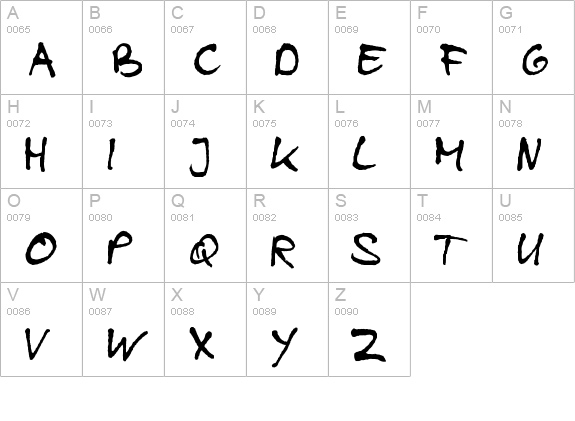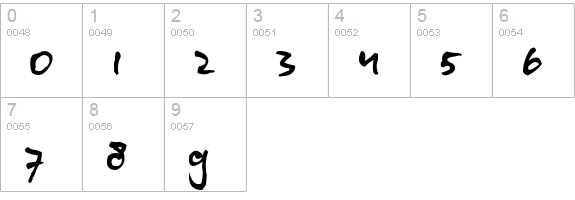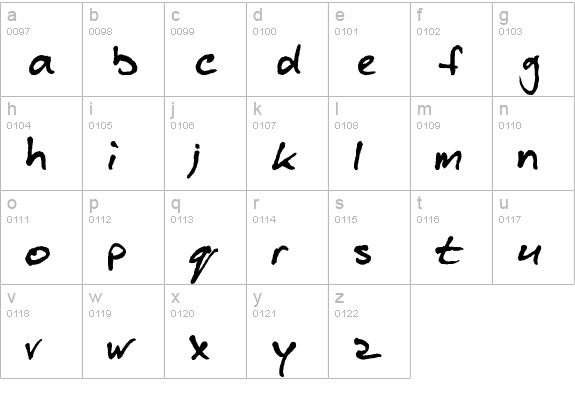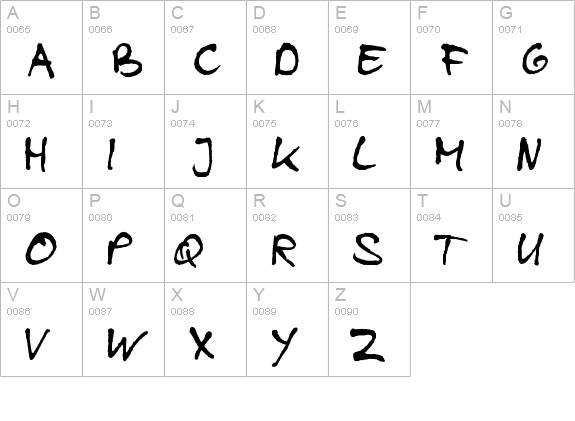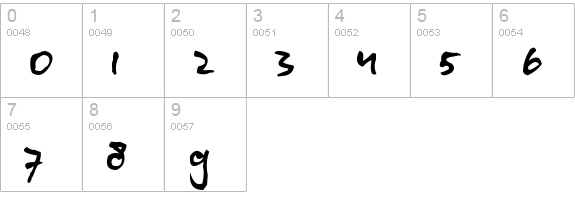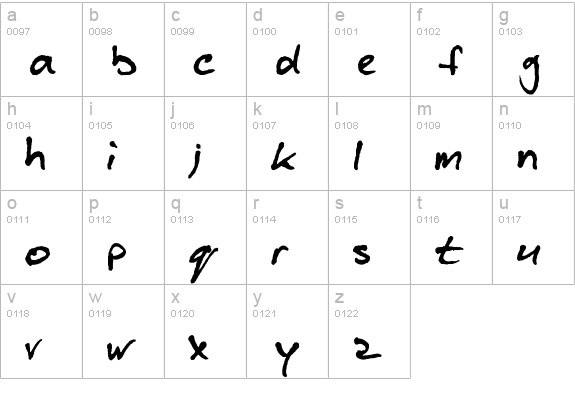
blzee Font Details
Blzee font is a stylish and modern typeface that brings a touch of elegance to any design project. Its sleek lines and contemporary feel make it perfect for a wide range of applications, from branding to web design. With its unique character and versatility, Blzee font is sure to make a statement. The best part? Blzee font is available for free download at FontsMarket.com, making it accessible to designers and creatives looking to add a sophisticated touch to their work without breaking the bank. Don't miss out on the opportunity to elevate your designs with this stunning font – download Blzee today!